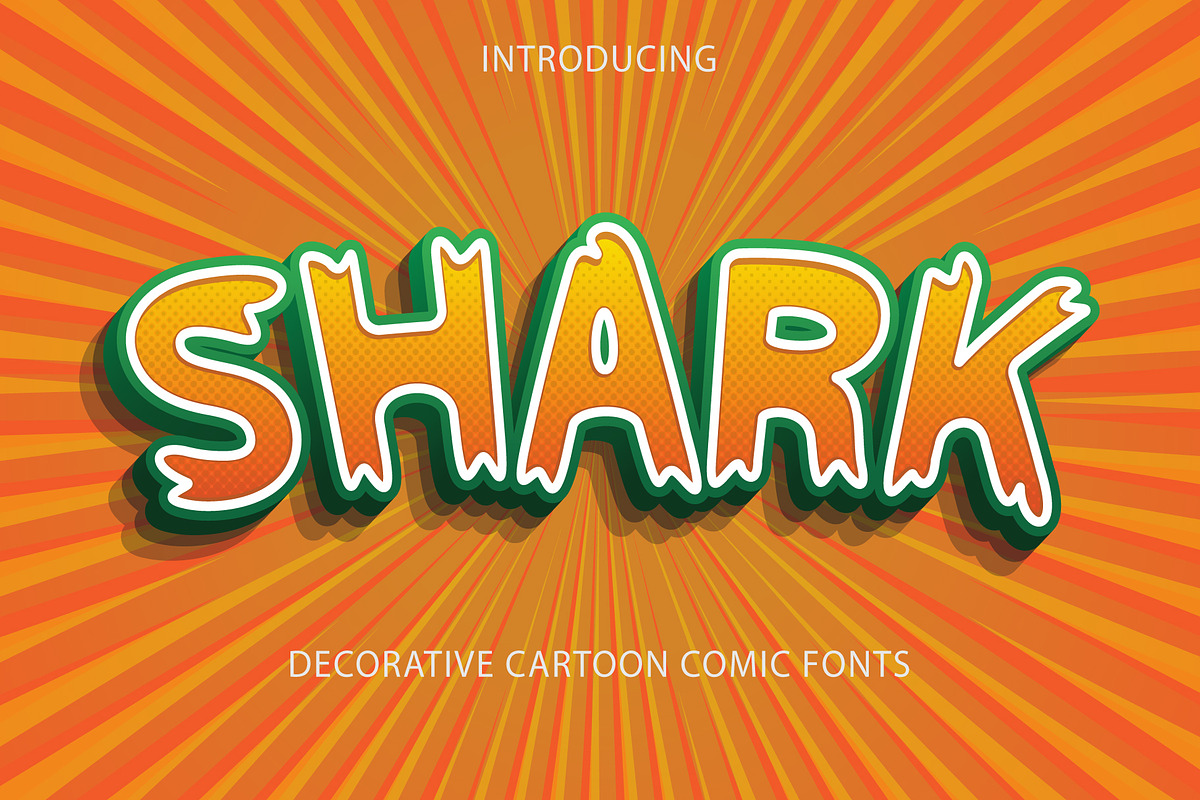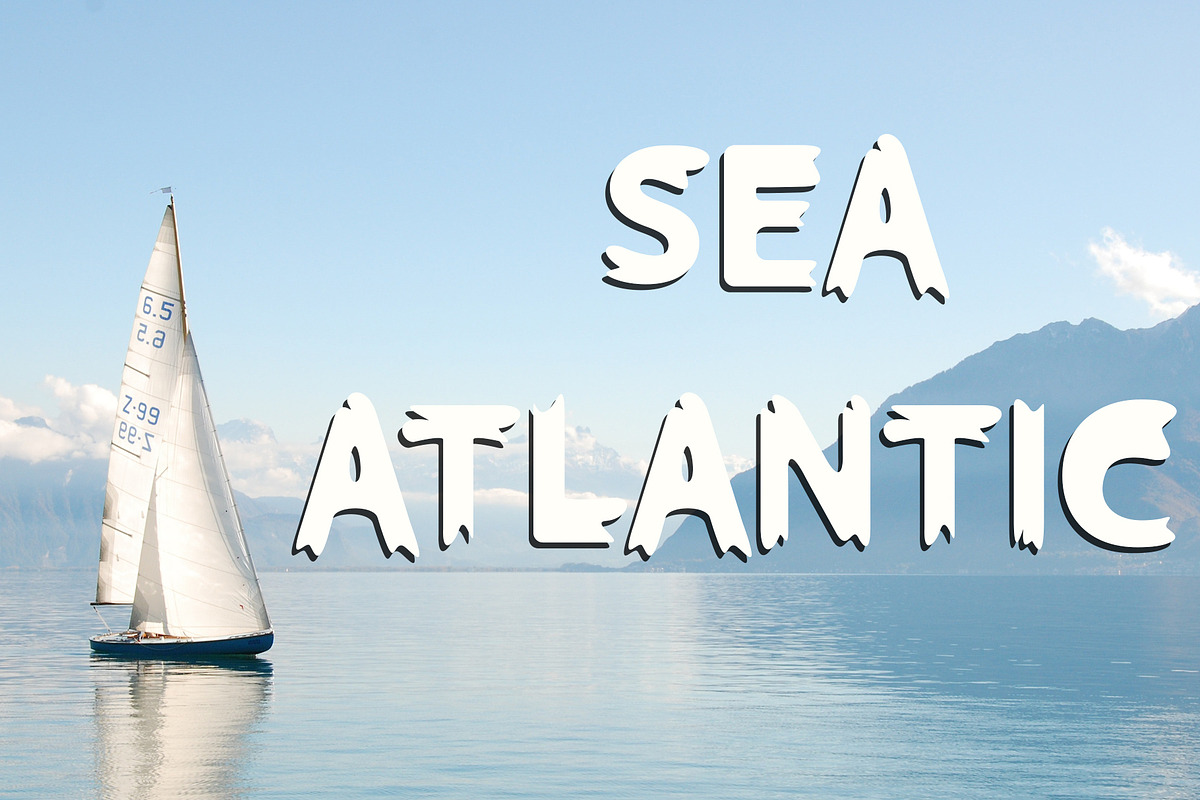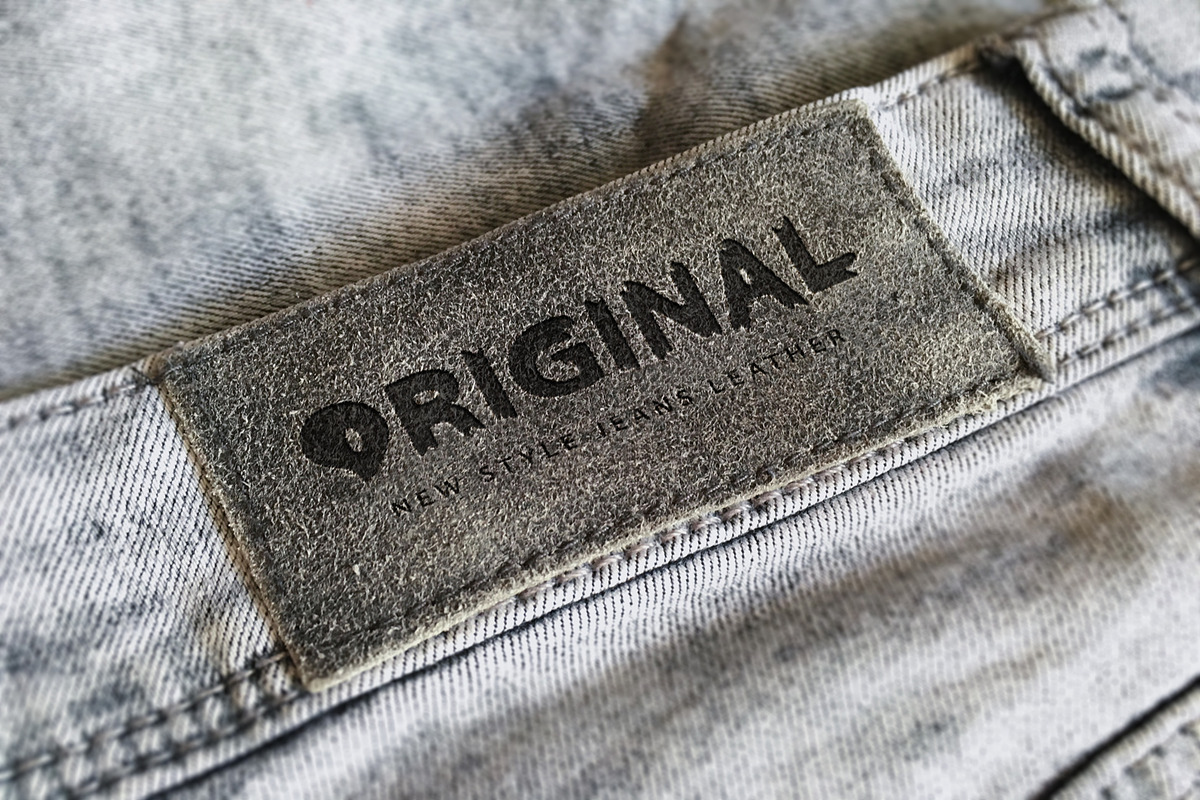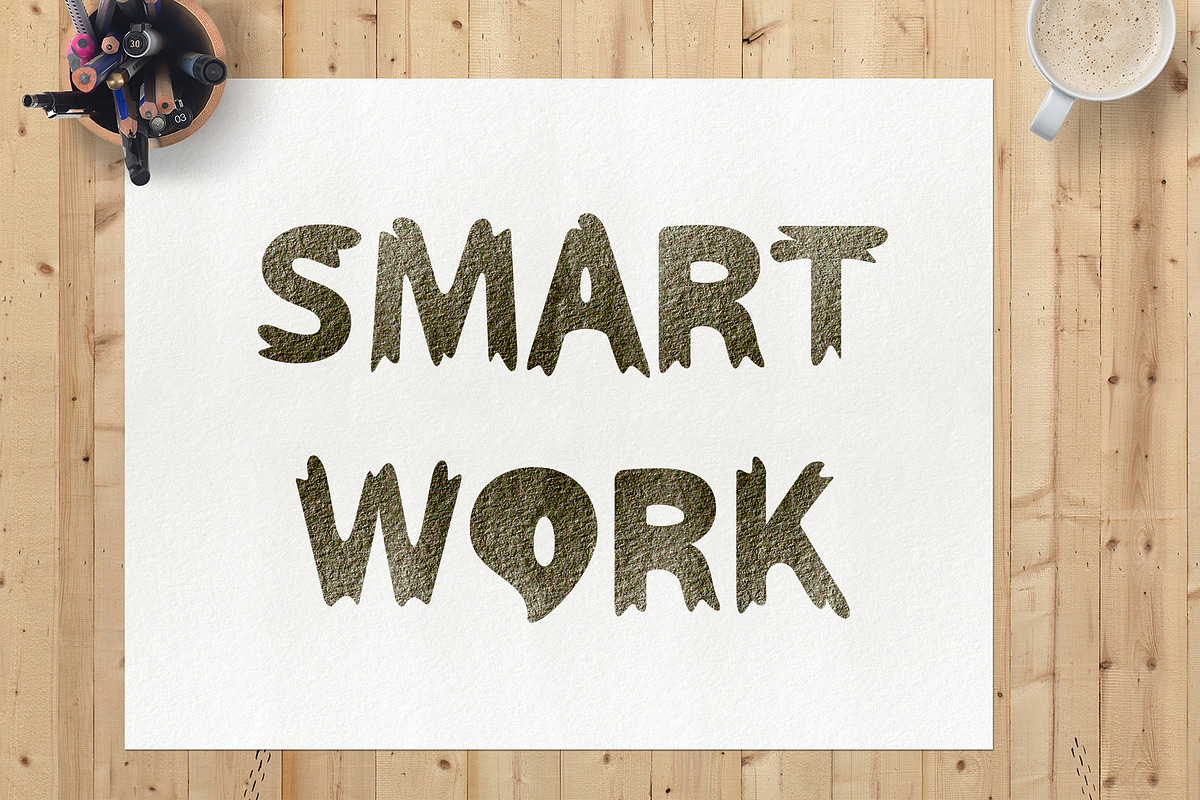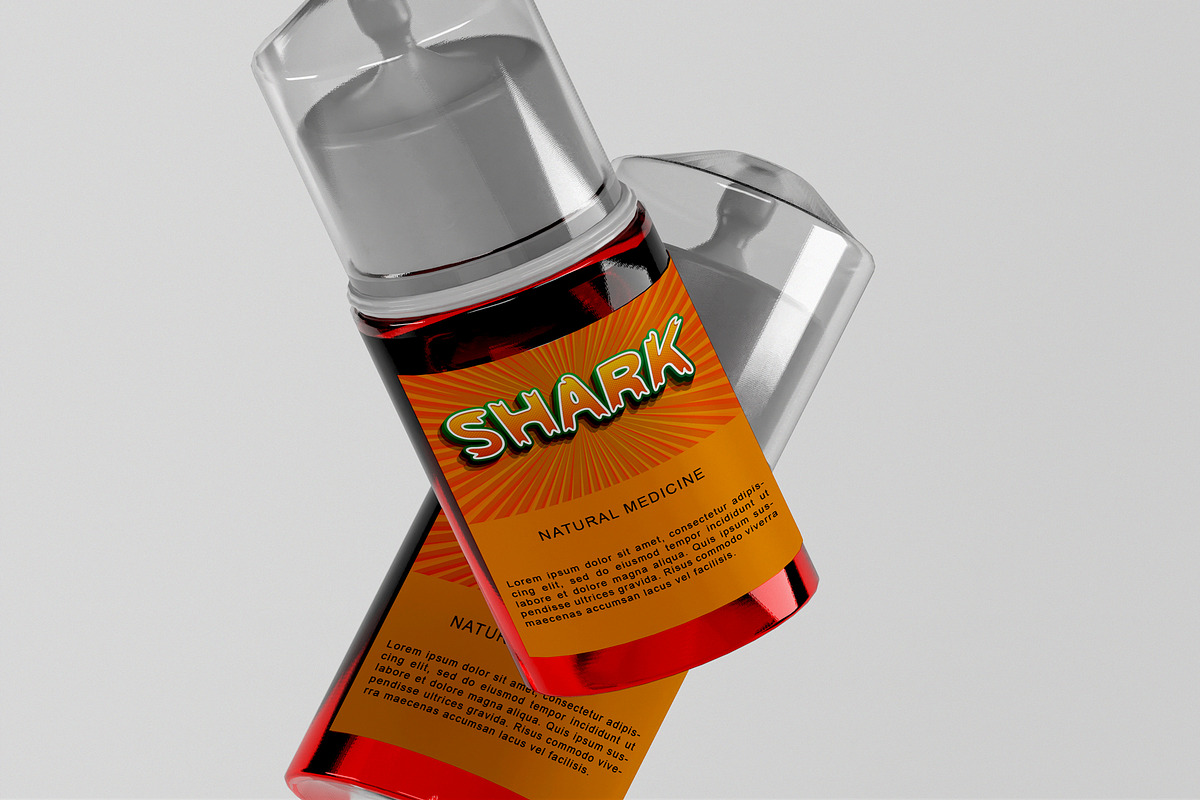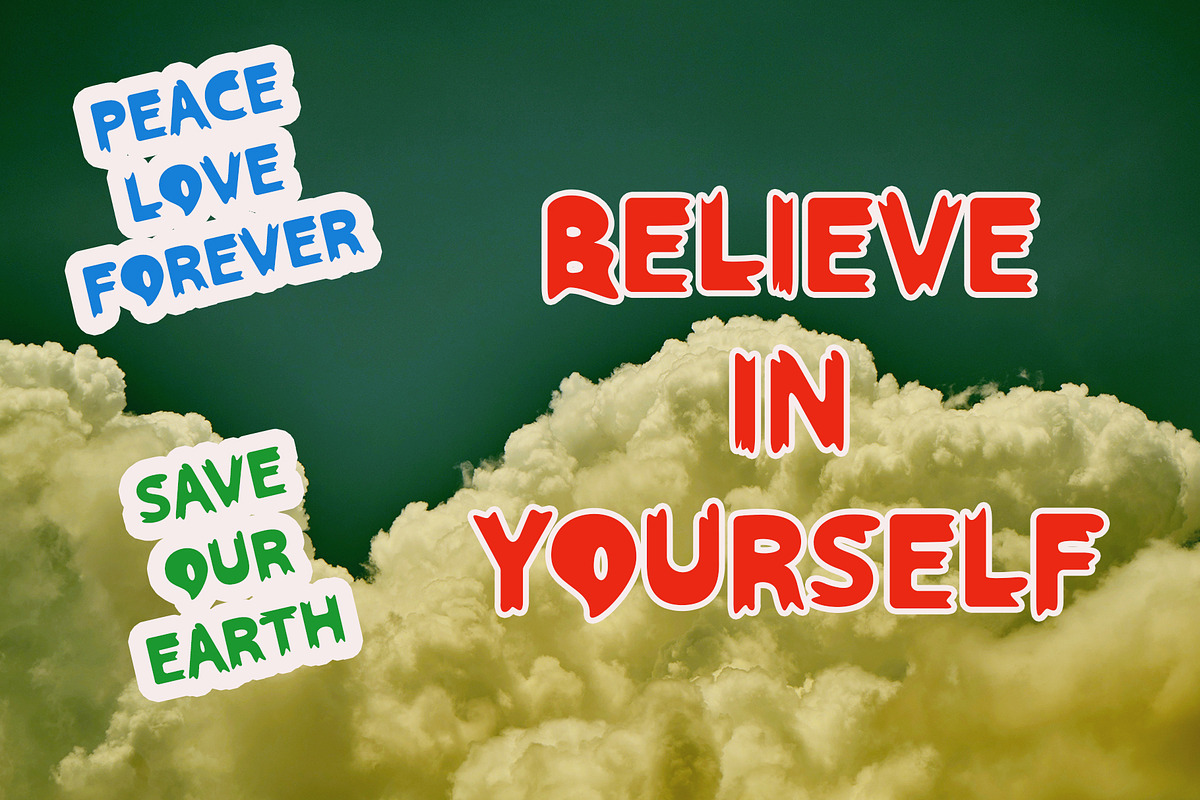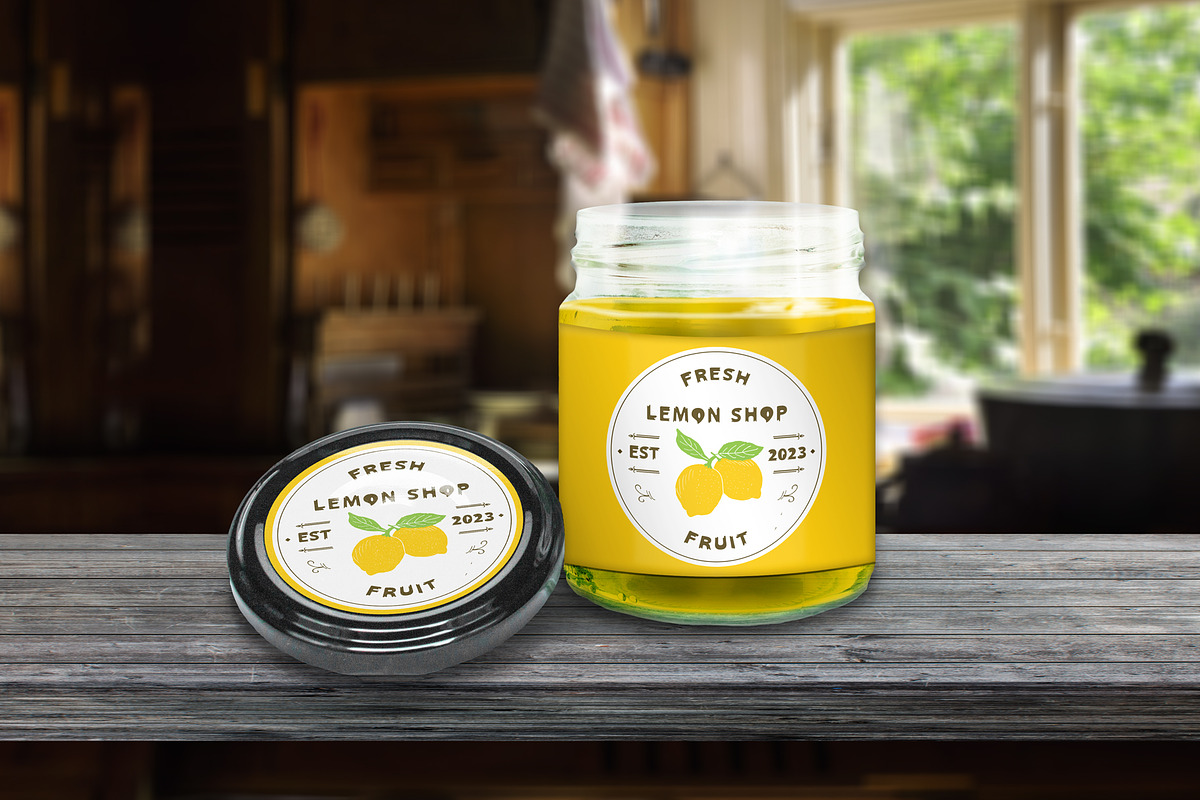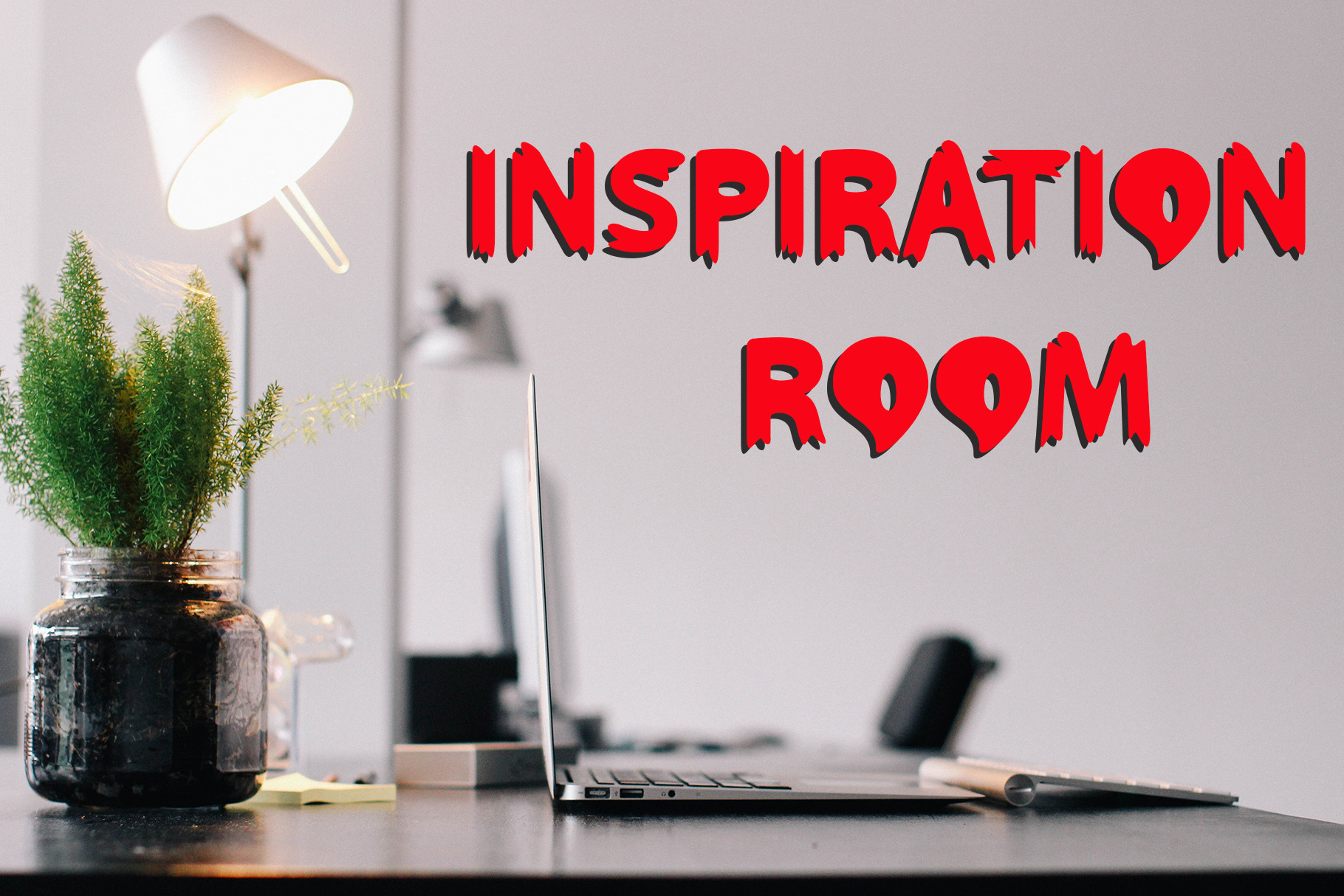
Shark – Bold Cartoon Font for Comics
Shark is a fun, bold, and energetic display font designed to bring life and character to any creative project. With chunky letterforms, playful curves, and a comic-inspired vibe, Shark is perfect for cartoon titles, comic books, kids' branding, gaming logos, and even eye-catching company names.
Whether you're designing for entertainment, education, merchandise, or social media, Shark delivers personality and impact. Its clean readability and bold attitude make it a strong choice for both digital and print applications.
Add a splash of fun and power to your typography with Shark Font – where bold design meets creative storytelling!
Great For:
Cartoon titles & comic books
Kids' branding and products
YouTube thumbnails & gaming content
Merchandise design (t-shirts, stickers, etc.)
Creative company logos
Posters, packaging, and more**